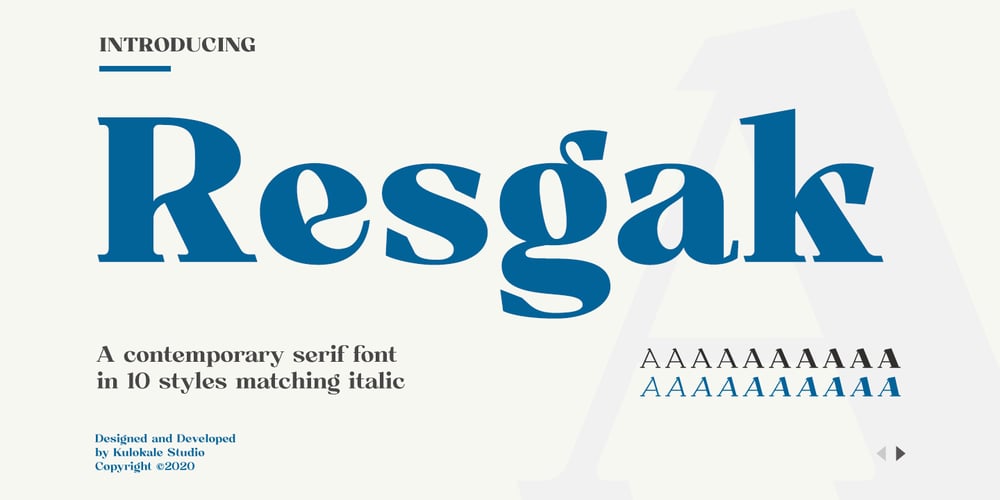
Resgak Font Family was designed by Eko Nur Cahyo and published by Kulokale. Resgak contains 20 styles and family package options. Resgak is a contemporary serif font with 20 fonts, ranging from thin to extra black with its matching italics, Resgak offers many possibilities to be applied in many graphic or editorial projects. Lighter weights are suitable for body text, and the heavier weights are perfect for striking headlines.Resgak is perfect for many different projects such as logos and branding, invitations, stationery, social media posts, advertisements, printed quotes, product packaging, product designs, labels, photography, watermark, special events and many more.This font is encoded with Unicode PUA, which allows full access to all additional characters without having special design software. Mac users can use Font Book, and Windows users can use Character Map to view and copy one of the extra characters to paste into your favorite text editor / application.I highly recommend using a program that supports OpenType features and Glyphs panels such as Adobe Illustrator, Adobe Photoshop CC, Adobe InDesign, or CorelDraw, so you can see and access all Glyph variations.We hope you enjoy the font and have fun! Thank You.